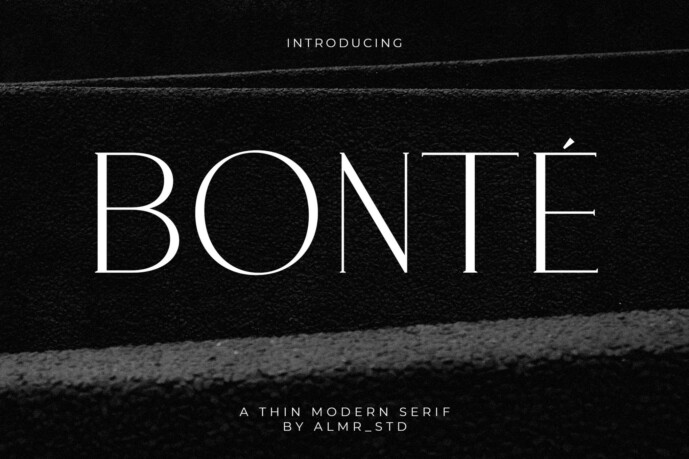
Bonte Font
Designer: ALMR_STD
Introducing Bonte – Display thin serif font. Bonte is a display, minimalis & thin serif font, This type of font is very suitable for your various needs such as branding projects, logos, social media posts, advertisements, labels, product packaging, photography, wedding designs, watermarks, invitation product designs, stationery, and any project.
FEATURES:
• Uppercase
• Lowercase
• Punctuation
• Numerial